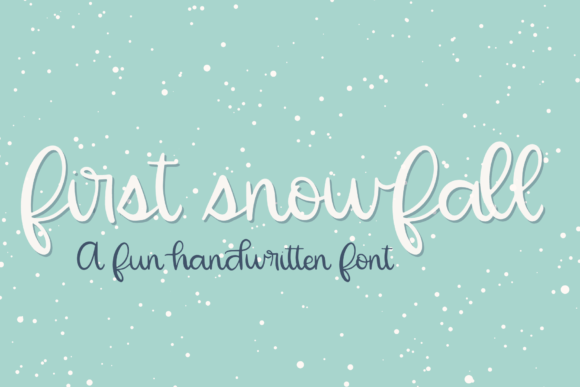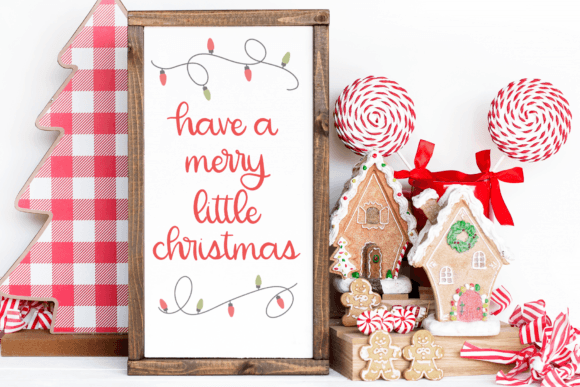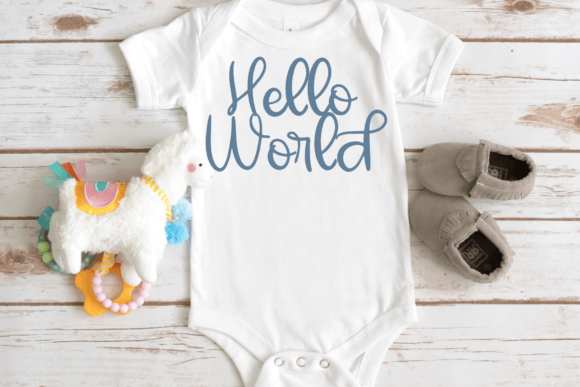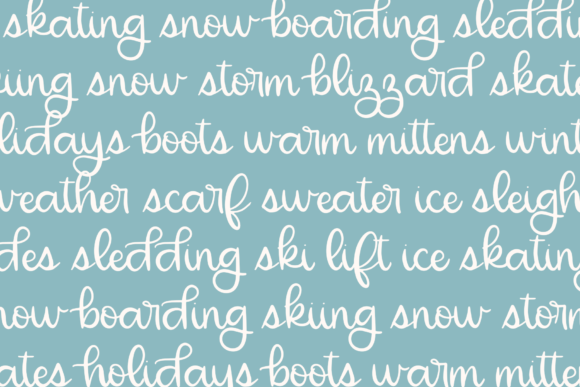
First Snowfall Font
Introducing First Snowfall, an energetic handwritten font that is a charming and cute addition to your creative projects! This unique font is perfect for all your Cricut designs, making it a must-have for craft enthusiasts. With its playful and fun handwriting style, this Halloween font adds a touch of whimsy and personality to any project. Whether you’re crafting cards, scrapbooking, or designing SVG files, this font will bring your creations to life.